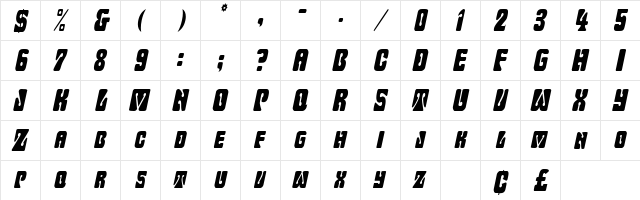
WavyOrnamentalCondensed Oblique
Design Context for WavyOrnamentalCondensed Typeface
WavyOrnamentalCondensed brings ornamental detail and strong personality to headlines and identities, where visual impact matters more than quiet functionality. The dynamic lean of this cut emphasises speed and emphasis in any layout.
Font Pairing: Pair with a clean neutral sans-serif for body copy to let WavyOrnamentalCondensed's character lead without overwhelming the composition.
Pro Tip: Use WavyOrnamentalCondensed exclusively at display sizes — it was designed to be seen, not read at length. Let a neutral companion handle body copy.